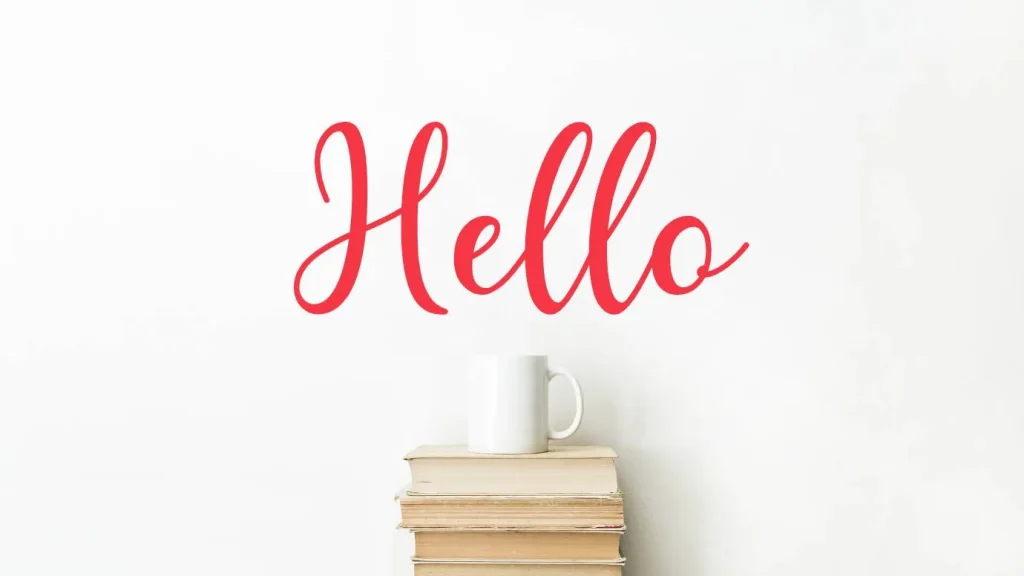
Video game players as well as other people who value its distinctive appearance are also fans. In addition to having an appealing appearance, this font can be
With the assistance of the online font tool generator, anyone can create such font design artistically. Hello font is frequently used mostly for branding and advertisement initiatives.
Video game players as well as other people who value its distinctive appearance are also fans. In addition to having an appealing appearance, this font can be used to design interesting logos. The Adobe application Canva and Photoshop can be used with this.
What Are the Qualities of Hello Font?
Advantages of Using Hello Font
This software allows you to create graphic text, logos for websites, template designs, and much more. Using this typeface makes it easy to create readable text, notes, articles, and assignments. This font style also helpful for making unique designs after making a pair with midnight font.
Unique designs and bold corners can be created with this stunning piece. Text designs can look more stylish with this typeface. It comes in a range of styles, making it suitable for a variety of designs. Designers can create text graphics and name designs by using them.
For usage in programming, transcriptions, word processing, worksheets, conferences, etc. The font type is ideal. Any application that calls for a taken-to-the-extreme typeface would benefit greatly from using the typeface.
This typeface is a perfect typeface for features for your websites. In expansion, it is right for any project such as advertisements, site layouts, social media posts, brands, and more.